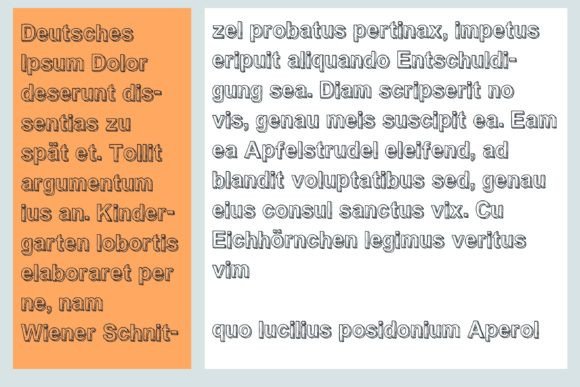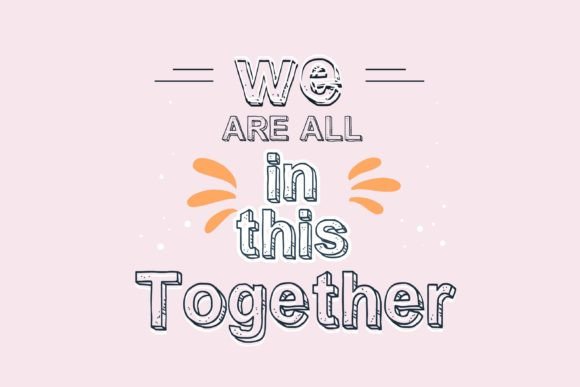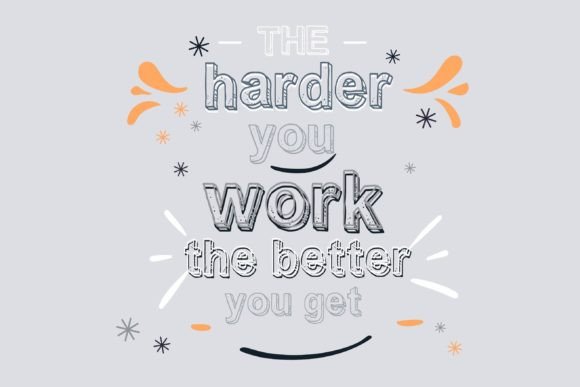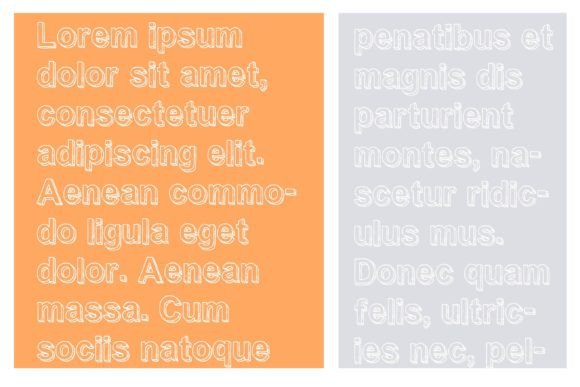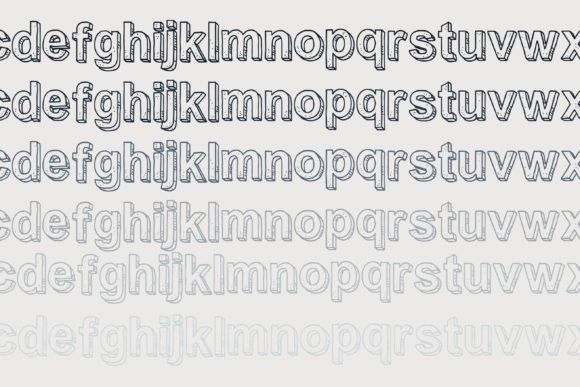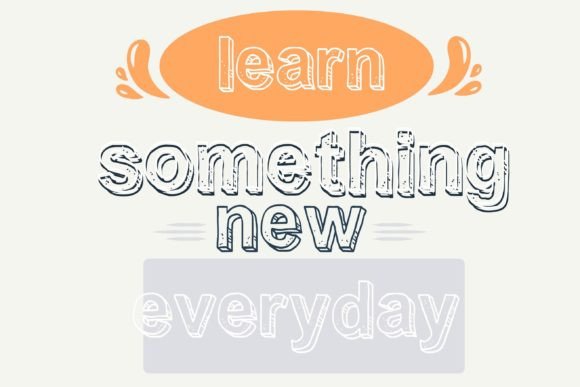
The Art of Hand-Crafted Fonts: Discovering Block Scrawl Font
Have you ever found yourself staring at a blank piece of paper, pen in hand, trying to come up with the perfect design for a project? You know, that moment when the ideas start flowing and your creativity takes over? For designers, moments like these are what make the job truly rewarding.
One such moment led to the creation of the Block Scrawl Font, a unique, hand-crafted outlined font that’s perfect for adding a touch of personality to your projects. With its textured, 3D look, this font is ideal for invitations, greeting cards, and other informal designs. And for designers, the value lies in its organic, one-of-a-kind quality that sets it apart from more traditional fonts.
Block Scrawl Font Key Features
- Unique Characteristics: Features a hand-drawn, scribbled style with bold lines and imperfections, giving it a distinctive and creative look.
Designer Review: Block Scrawl Font
I recently had the chance to work with Block Scrawl Font, and I must say it’s a unique addition to any design project. Here are my thoughts:
- ✨ Unique aesthetic: Block Scrawl Font has a distinct, hand-drawn feel that can add a touch of personality to any design.
- ✨ Versatile: It works well for a variety of applications, from digital displays to print materials.
- ✨ Customizable: The font offers a range of styles and weights, making it easy to adapt to different design needs.
- ⚠️ Readability: In certain situations, the font’s unique style can make it difficult to read, especially at small font sizes.
- ⚠️ Limited language support: Block Scrawl Font may not be optimized for certain languages or character sets.
- ⚠️ Not suitable for formal or professional applications: The font’s casual, handwritten feel may not be suitable for formal or professional contexts.
Overall, I think Block Scrawl Font is a great choice for designers looking to add some personality to their work. While it may have some limitations, its unique aesthetic and versatility make it a valuable addition to any design toolkit.
Tips for Getting the Most Out of Block Scrawl Font
For the best results, use Block Scrawl Font in bold and large font sizes to make it stand out. You can also experiment with different font combinations to create unique and eye-catching designs.
Block Scrawl Font is perfect for:
- Creating unique titles and headings.
- Designing creative social media graphics.
Alternatives to Block Scrawl Font
Block Scrawl Font is a unique, handwritten font used for various design purposes. However, it may not be suitable for all projects. Here are a few alternatives to consider:
Pacifico is a beautiful, cursive script font that works well for titles, headings, and short paragraphs. It is more elegant and refined compared to Block Scrawl Font, making it suitable for high-end designs, wedding invitations, and other special occasions.
Great Vibes is a modern, cursive script font that is perfect for creating a friendly and approachable atmosphere. It is more playful and casual compared to Block Scrawl Font, making it suitable for social media graphics, advertisements, and blog posts.
Dancing Script is a sophisticated, cursive script font that is ideal for titles, headings, and short paragraphs. It is more elegant and refined compared to Block Scrawl Font, but has a more dynamic feel, making it suitable for fashion designs, beauty products, and other luxury brands.
What is the character set of Block Scrawl Font?
Block Scrawl Font includes a comprehensive character set that includes Latin, Greek, and Cyrillic scripts. The font also includes a range of punctuation and symbol characters, including mathematical symbols and currency signs. However, the font may not include all Unicode characters,